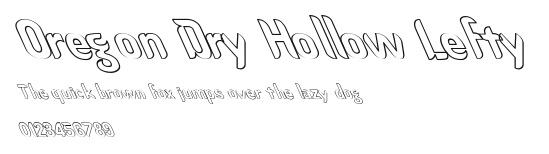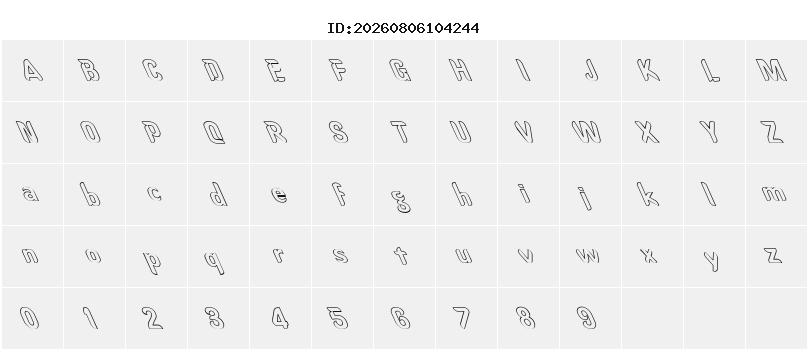
• Font Name: Oregon Dry Hollow Lefty
• Full Font Name: Oregon Dry Hollow Lefty
About Oregon Dry Hollow Lefty.ttf
Oregon Dry Hollow Lefty.ttf is a modern, elegant sans-serif font designed for ultimate readability and visual harmony. Perfect for branding, headlines, web design, and print materials.